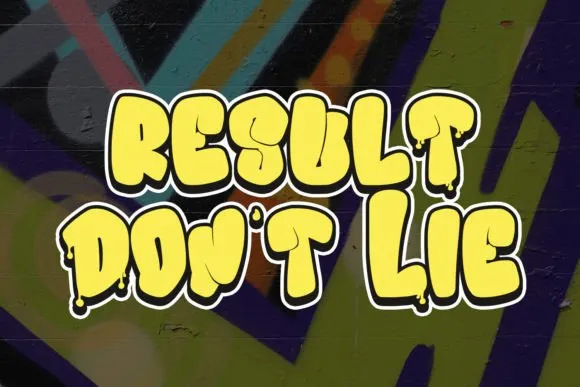
Bubble Paint Font spray painting show textual style. Striking stroke, fun person with a touch of ligatures and substitutes.
To give you an extra innovative work. Bubble Paint spray painting show text style support multilingual more than 100+ language.
Bubble Paint Font text style is really great for logo plan, Web-based entertainment, Film Titles, Books Titles, a short text even a long text letter and really great for your optional text textual style with content or serif. Make a staggering work with Air pocket Paint spray painting show text style.